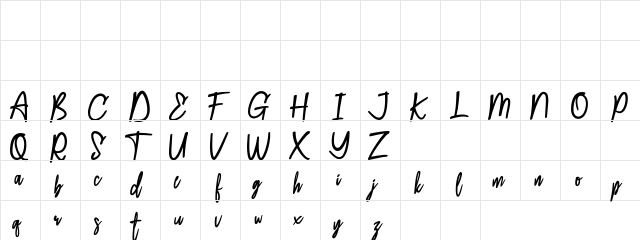
sweatty Regular
| Foundry | StudioAKTYPE |
| Designer | Jani Nurman |
Design Context for sweatty Typeface
sweatty is a composed and adaptable typeface that performs quietly and consistently across a wide range of design contexts.